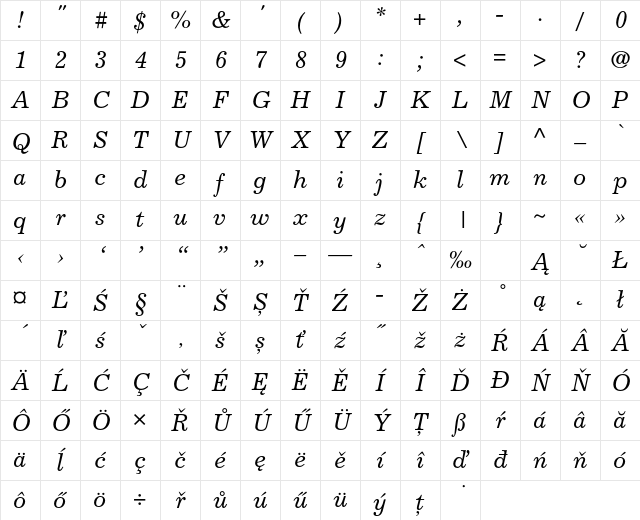
Excelsior EastA Italic
Style: EastA Italic
Design Context for Excelsior
Excelsior is a composed and adaptable typeface that performs quietly and consistently across a wide range of design contexts. The slanted form adds forward momentum and visual energy.
Pro Tip: Use Excelsior for emphasis, pull quotes, and subheadings where its slanted energy can add rhythm to the layout.